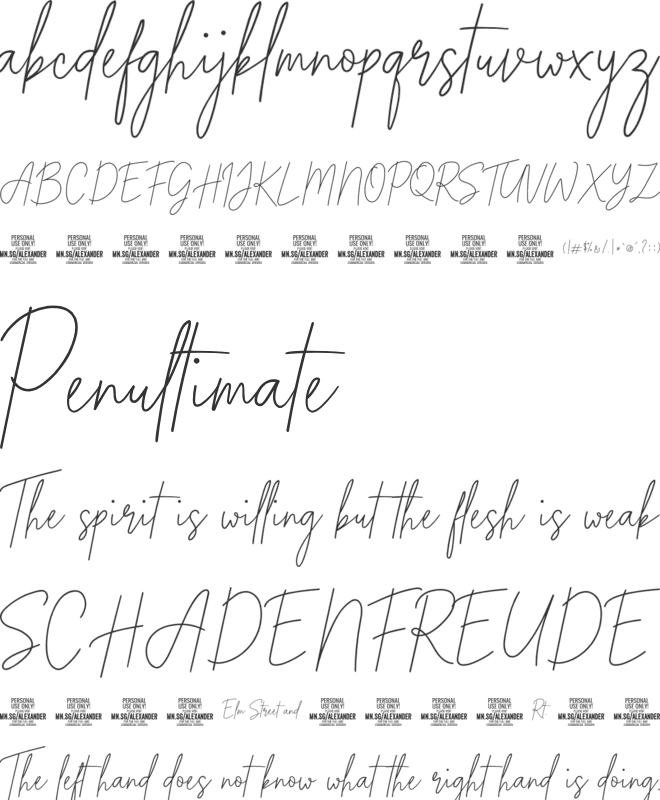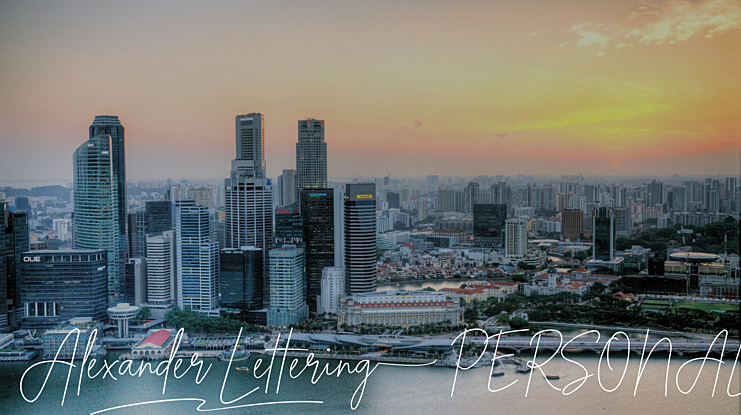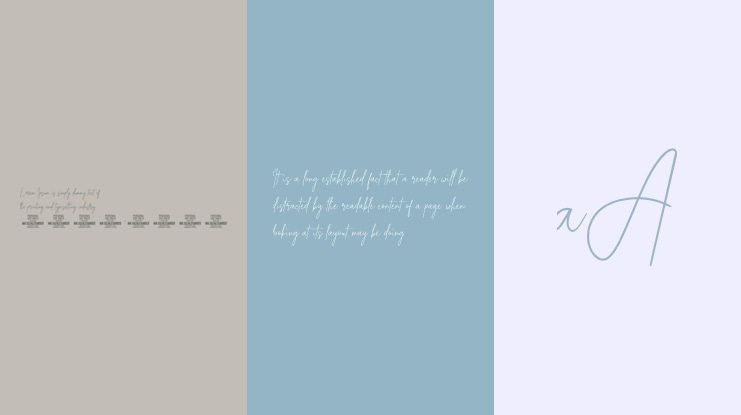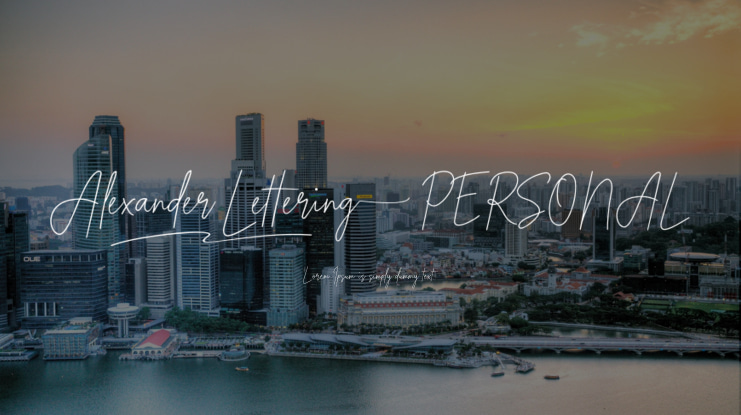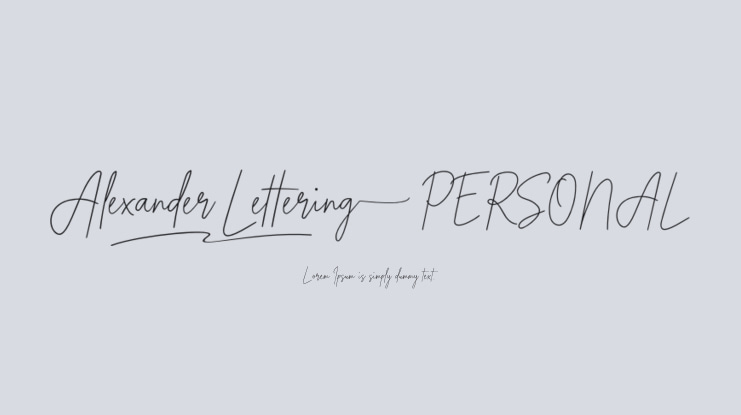
Alexander Lettering PERSONAL Font
Alexander Lettering is a handwriting font that captures the wild essence of a quick signature. Drawing inspiration from hurried notes and scribbles, Alexander Lettering embraces the imperfections of the human touch, giving your designs an authentic and relatable feel.
Use underscore _ to make a swash anywhere in a word.
Example: Signa_ture
Use multiple underscores to make different underlines.
Example: Handwritten_______Autograph